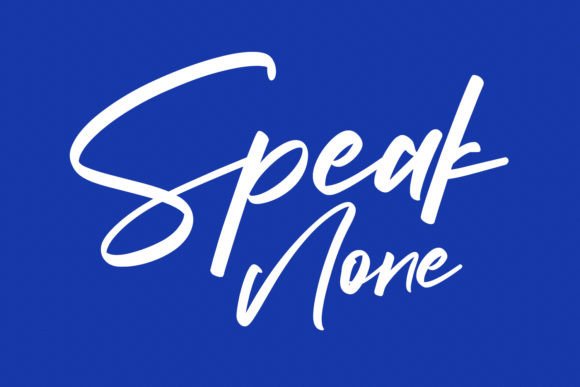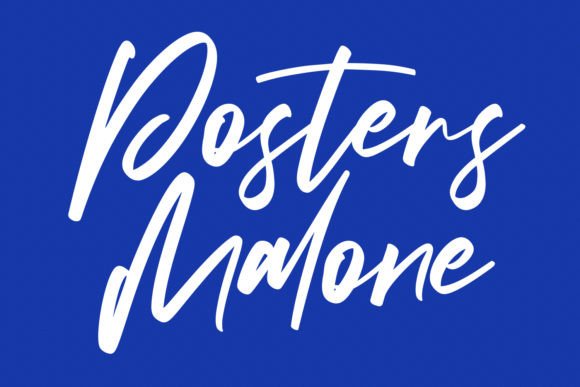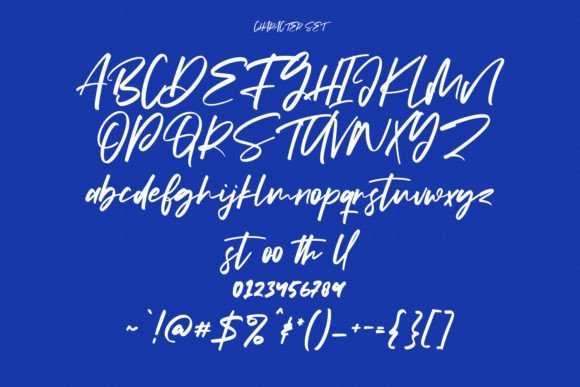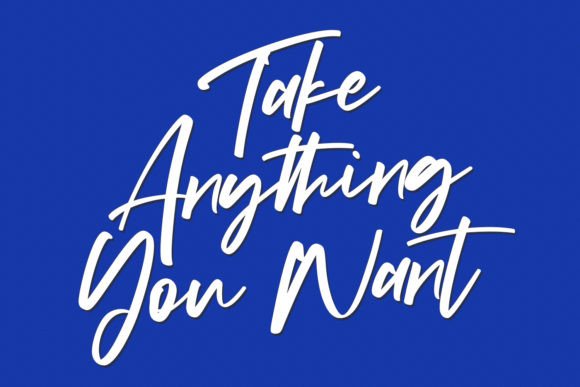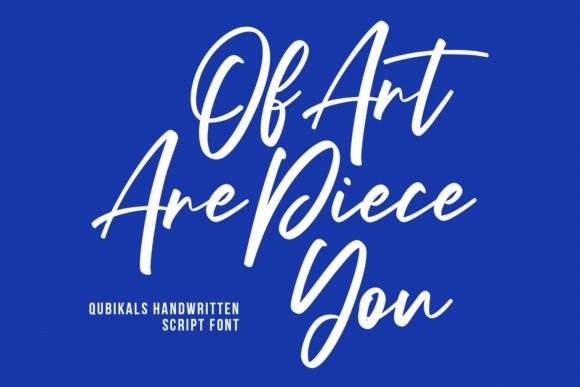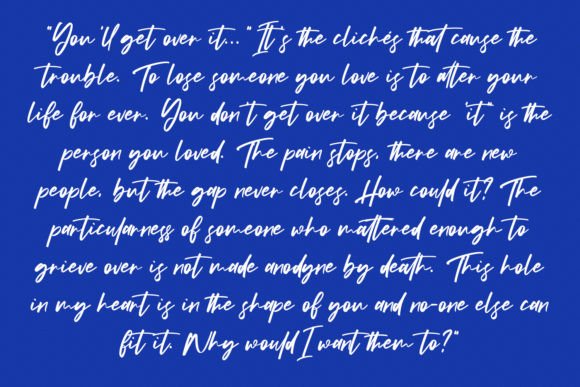
Qubikals Font
The Qubikals Font Download is a flowing handwritten typeface designed with elegance and timeless charm. Its graceful curves and smooth strokes make it suitable for many creative uses. Because of its stylish versatility, Qubikals is a favorite choice for invitations, branding, websites, and posters.
A Flowing Handwritten Script with Elegance
Qubikals captures the beauty of classic handwritten lettering with a modern touch. Unlike overly decorative fonts, this Qubikals script font balances elegance and readability. As a result, it works equally well for personal and professional design projects.
Invitations and cards always feel more memorable with a personal script. The Qubikals Font is perfect for wedding stationery, holiday greetings, and thank you notes. Moreover, its handwritten curves add a heartfelt and refined touch to every message.
Branding and Logo Design with Qubikals
Typography is a key part of building a strong brand identity. The Qubikals handwritten font is excellent for boutique logos, product packaging, and marketing designs. In addition, it ensures brands look both professional and stylish while staying approachable.
Posters, Titles, and Large-Scale Designs
Posters and banners need fonts that are bold yet elegant. The Qubikals Font Download was crafted to perform well at large point sizes, making it ideal for billboards, event flyers, and magazine titles. At the same time, it stays clear and stylish in smaller text.
Digital Design and Social Media Projects
Qubikals adapts easily to digital platforms. For example, it works well in Instagram posts, Pinterest graphics, blog headers, and YouTube thumbnails. The Qubikals typeface integrates smoothly with Canva, Photoshop, and Illustrator, allowing creators to work efficiently.
Why Designers Choose Qubikals Typeface
Designers love fonts that combine style with usability. Many handwritten styles lose readability at small scales, but the Qubikals handwritten script remains legible while keeping its elegant character. Therefore, it is a practical and stylish choice for professionals and hobbyists.